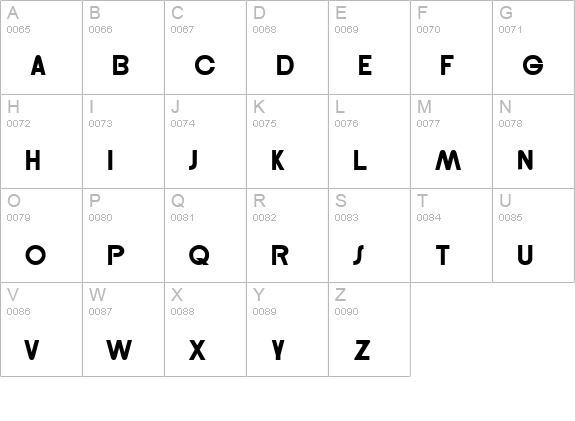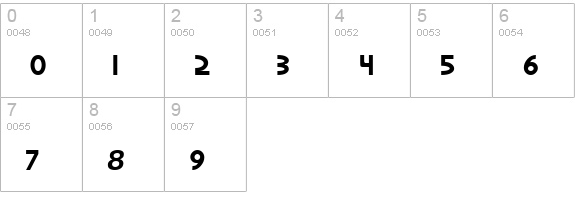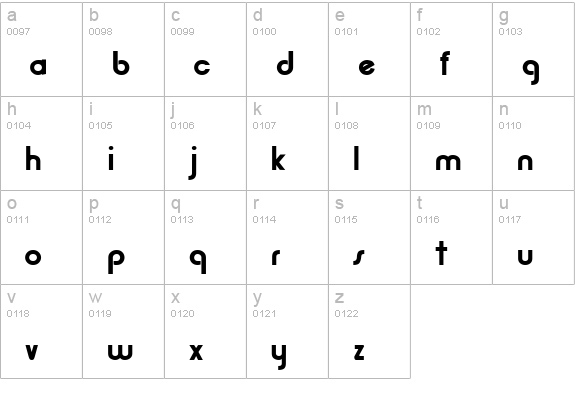
Nemesis Font Details
Nemesis font is a striking and modern typeface designed to make a bold statement in any design project. With its sharp edges and sleek lines, Nemesis exudes power and sophistication. Whether used for headlines, logos, or branding, this font commands attention and leaves a lasting impression. What sets Nemesis font apart is not just its unique design, but also the fact that it is available for free download at FontsMarket.com. This means that you can elevate your projects with this eye-catching font without any cost. Don't miss out on the opportunity to add Nemesis to your font collection and take your designs to the next level.